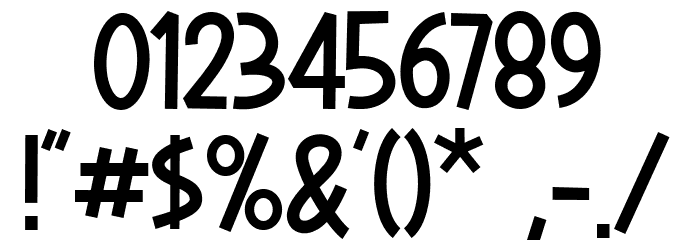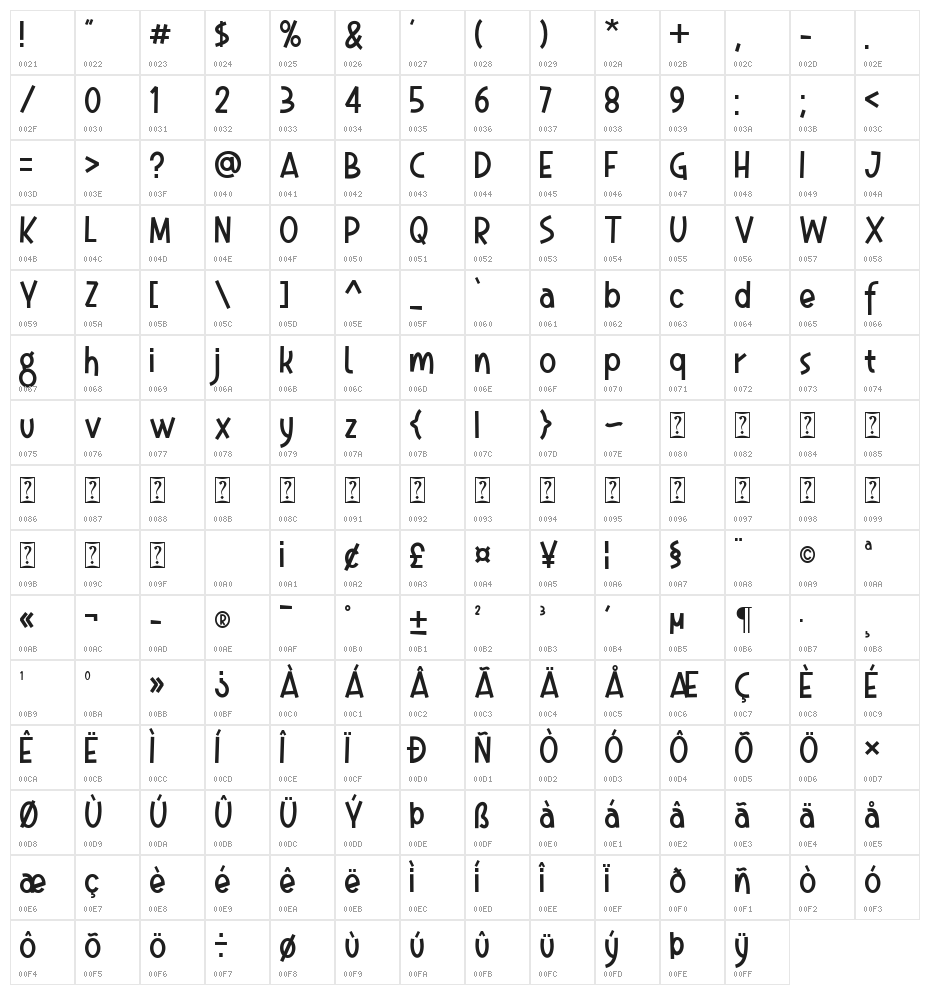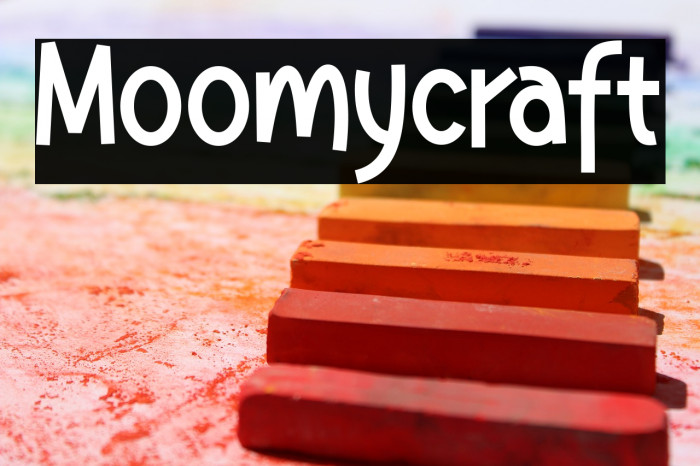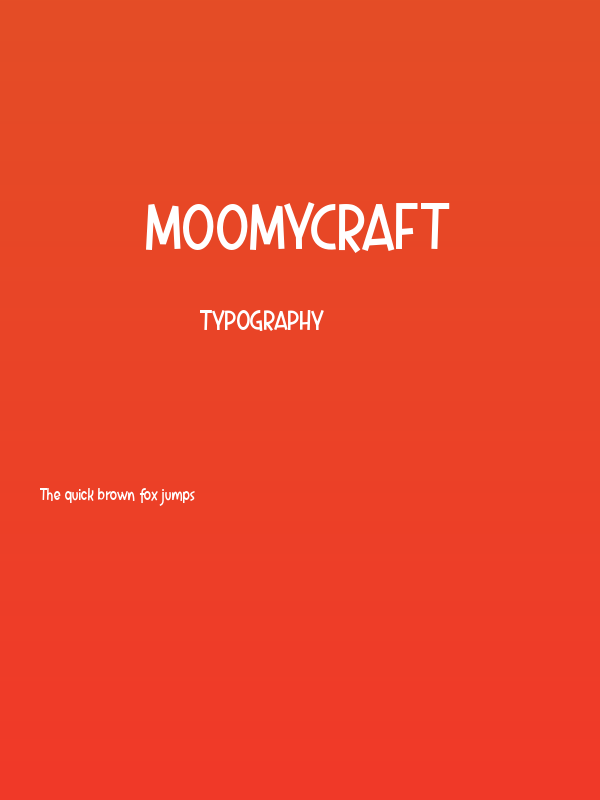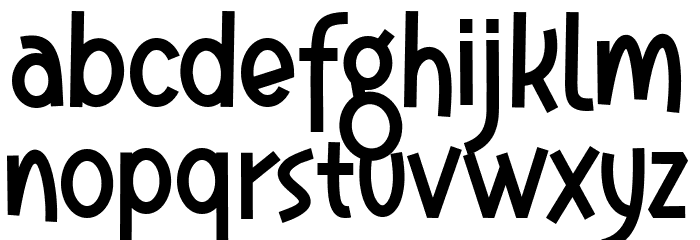
Moomycraft Font
Moomycraft Description
This font features a playful and whimsical design, characterized by its rounded and slightly irregular letterforms. The uppercase letters are bold and prominent, while the lowercase letters maintain a consistent flow with a touch of quirkiness. The numerals are clear and easy to read, complementing the overall style. Special characters are well-integrated, adding to the font's versatility. The strokes are consistent in weight, providing a uniform appearance across all characters. This font exudes a friendly and approachable vibe, making it suitable for various creative applications.